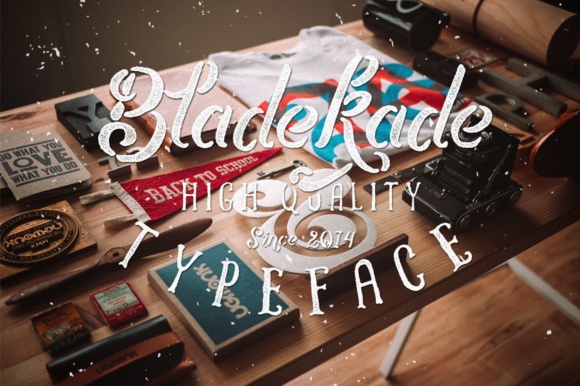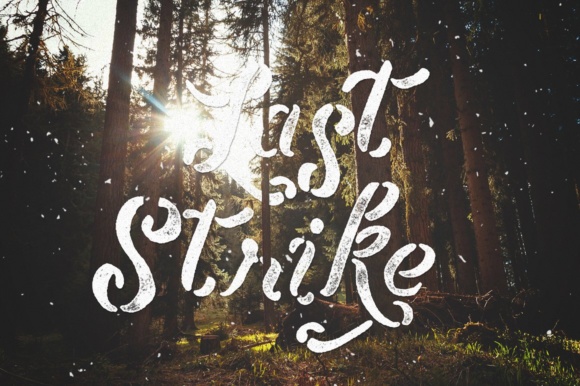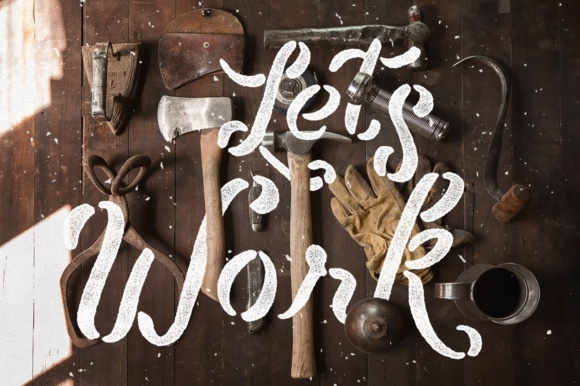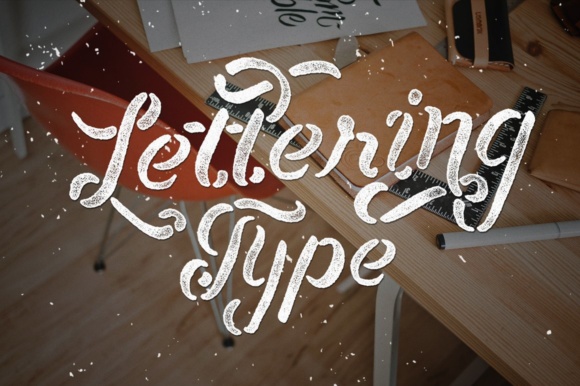
Bladekade Font
About Bladekade Font
The Bladekade is a stencil script font with a hand drawn style. It’s perfect for logo branding, clothing, posters, and much more!